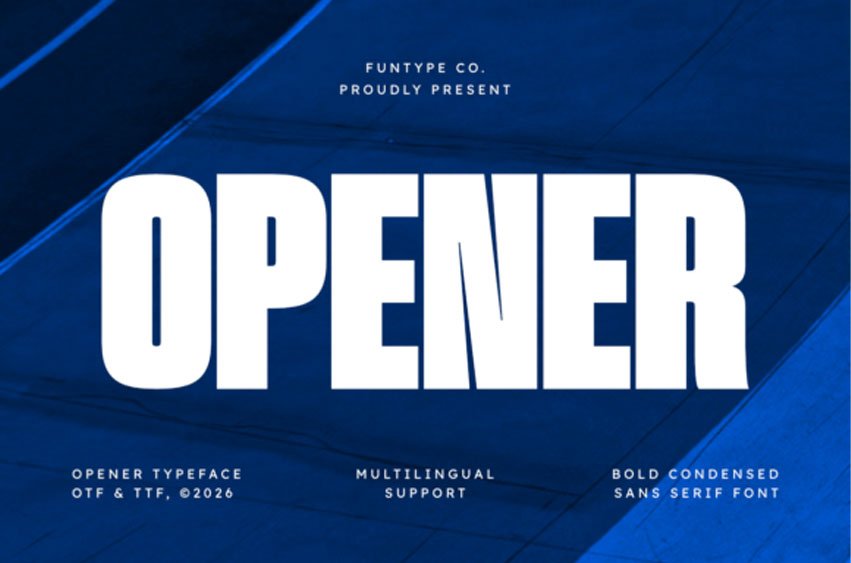
Opener Font is a massive and powerful bold condensed sans serif font designed for high-impact and precise typography. With its refined heavy structure and clean, solid lines, this font is perfect for strong headlines, professional sports logos, industrial branding, and high-impact digital posters.
Its confident, blocky, and balanced design gives your visuals a striking, professional, and advanced look. Provided in OTF and TTF formats with full multilingual support for maximum compatibility across all design platforms.